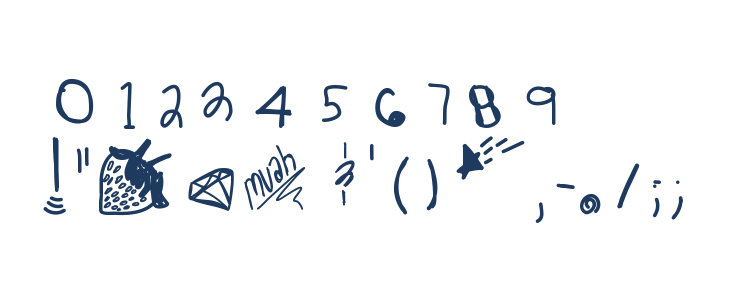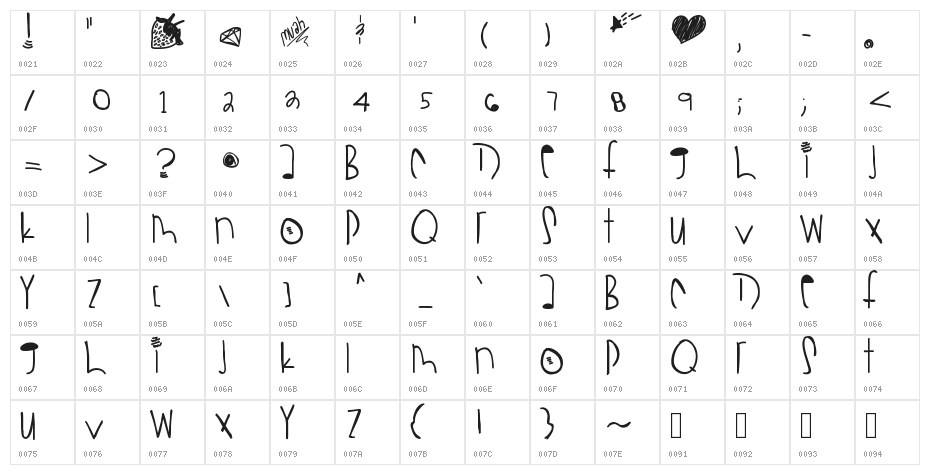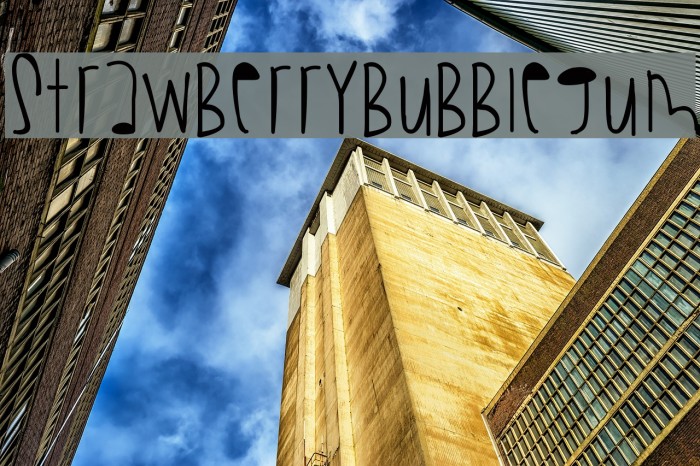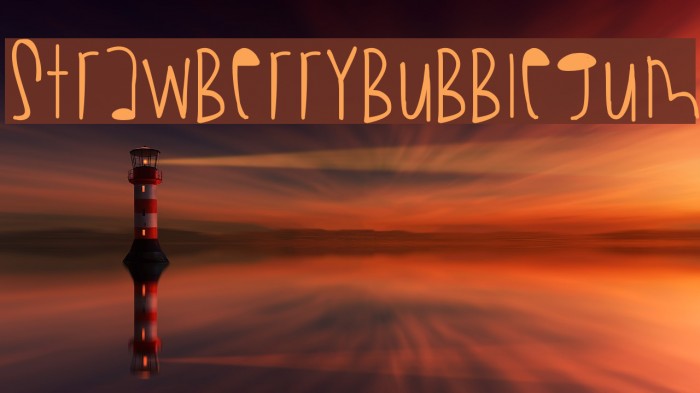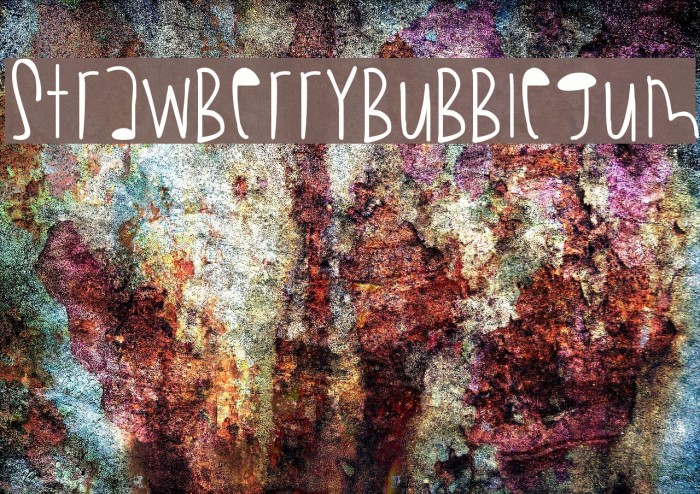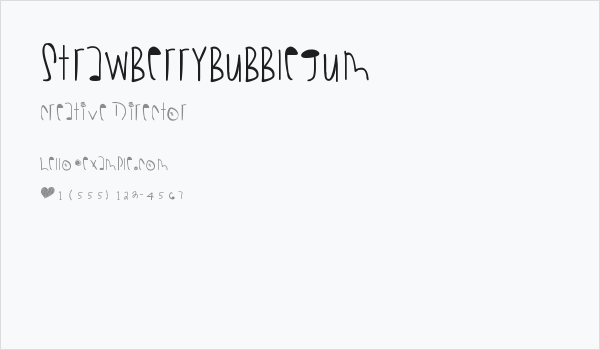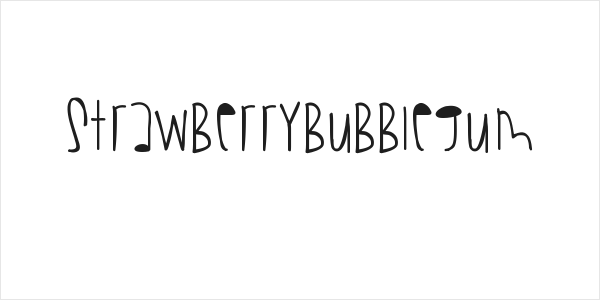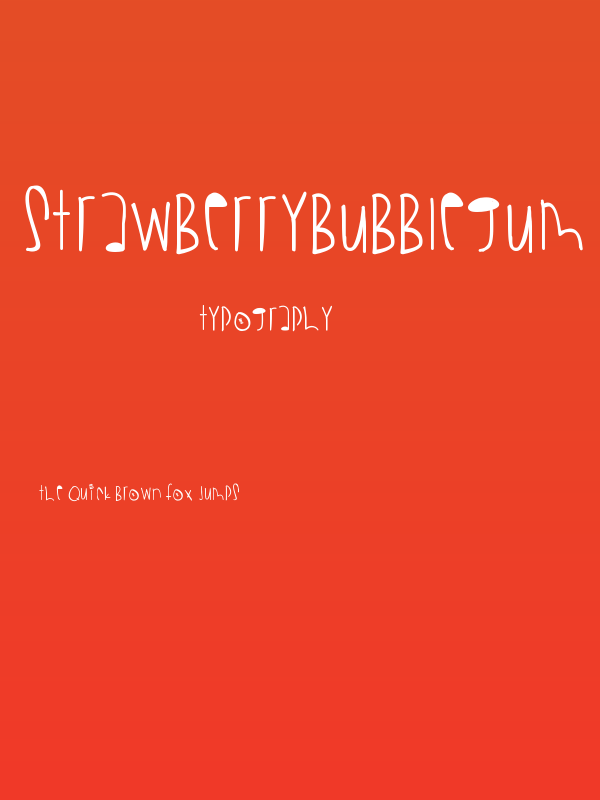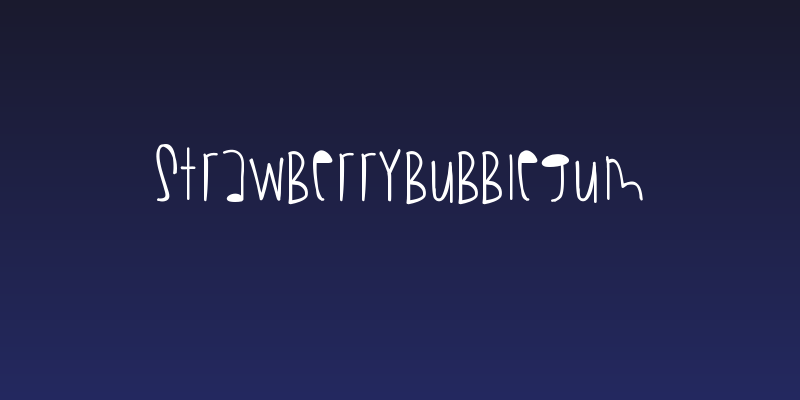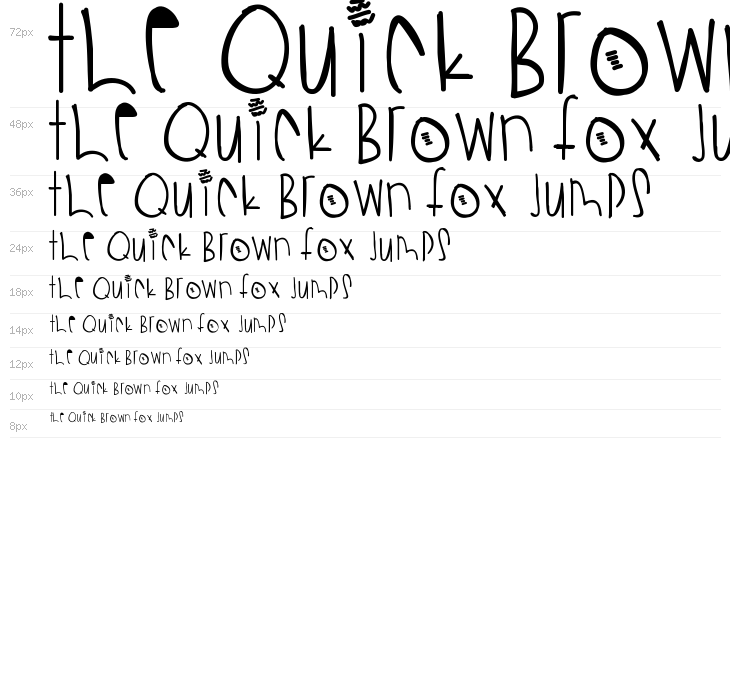
StrawberryBubblegum Font
StrawberryBubblegum Description
This playful and whimsical font features a unique and quirky design with irregular shapes and a hand-drawn feel. The letters have a casual and informal style, with varying stroke widths and playful embellishments that give it a lively and energetic appearance. The font includes both uppercase and lowercase letters, numbers, and a selection of special characters, each with its own distinct personality. The overall look is fun and creative, making it perfect for projects that require a touch of individuality and charm.